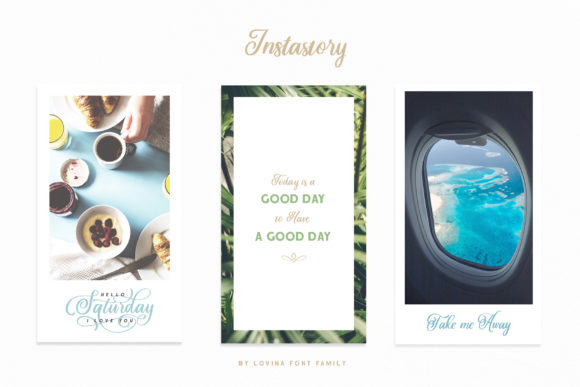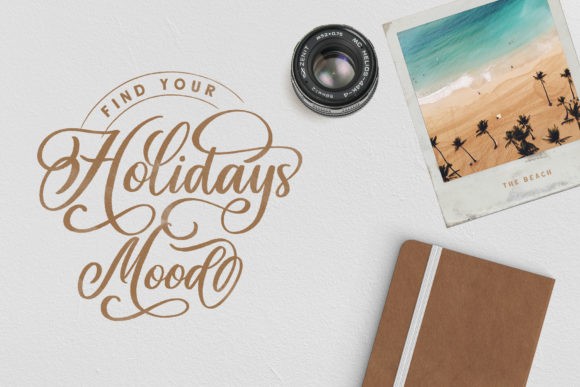
Lovina Family Font
db-ku.com - Script & Handwritten -- Lovina is a lovely handwritten font family that will help create unique and truly stunning crafting projects!